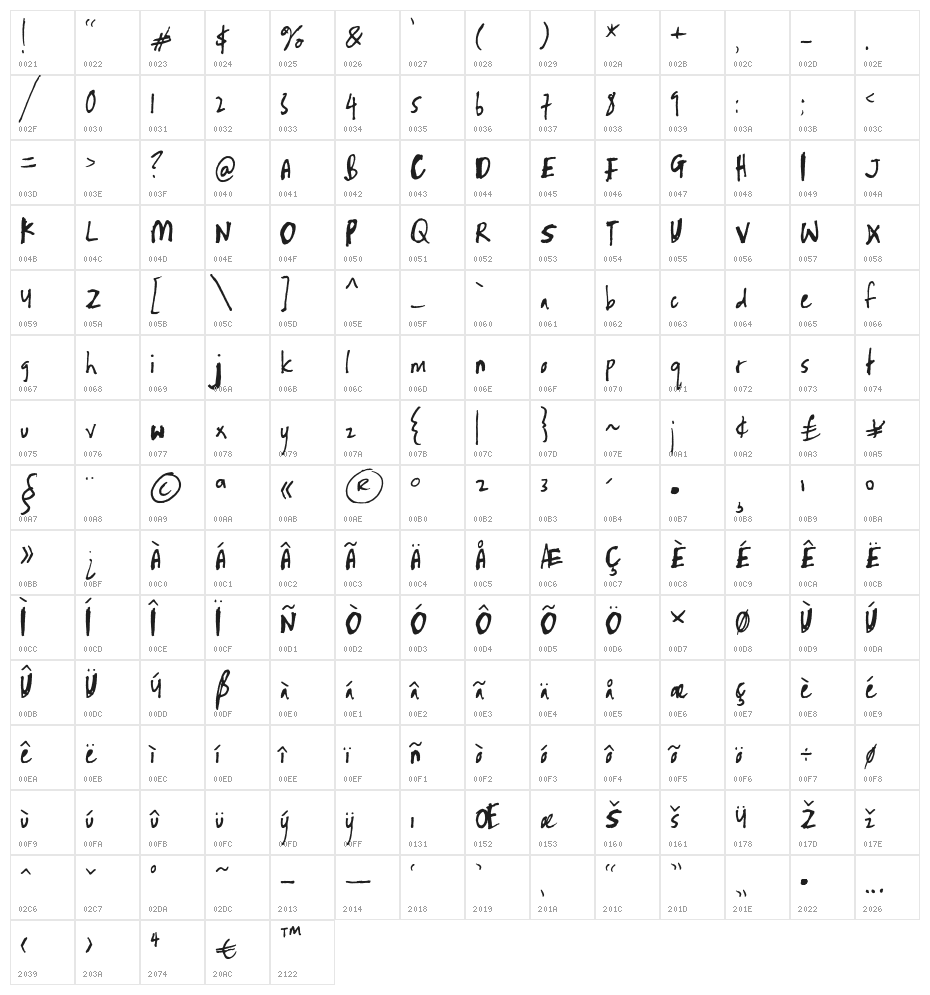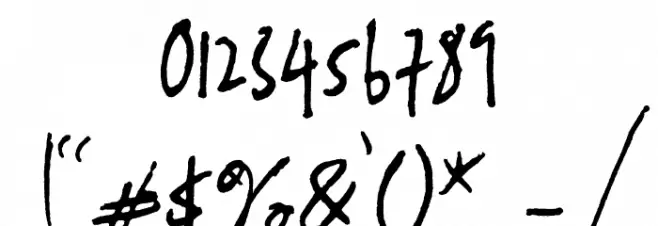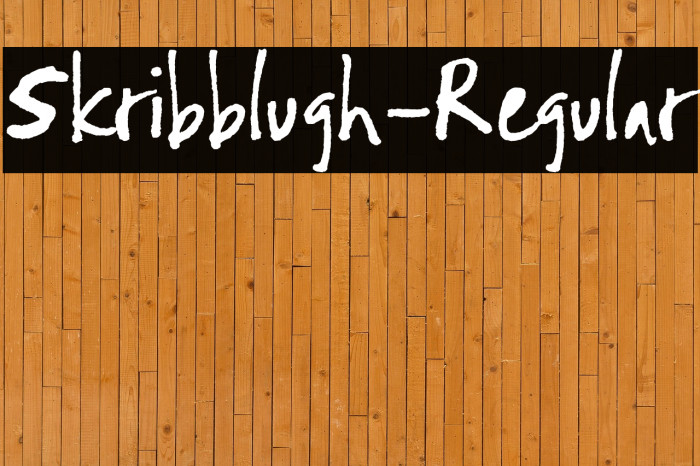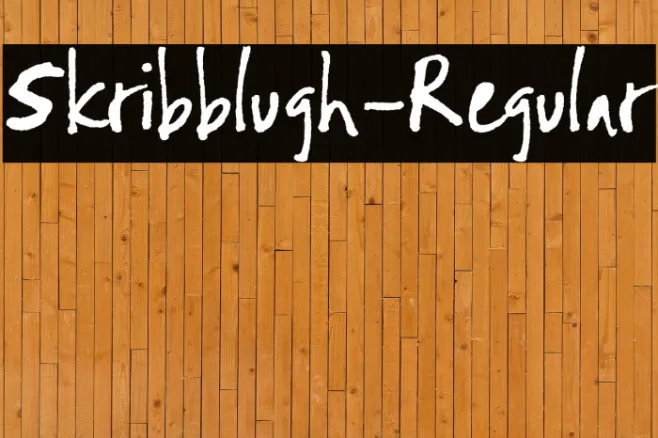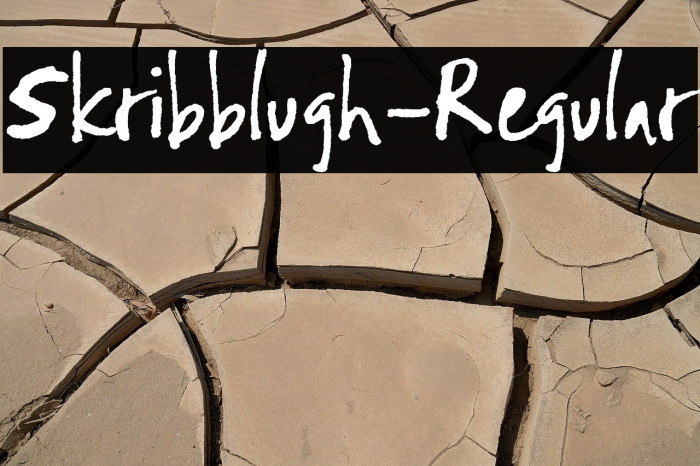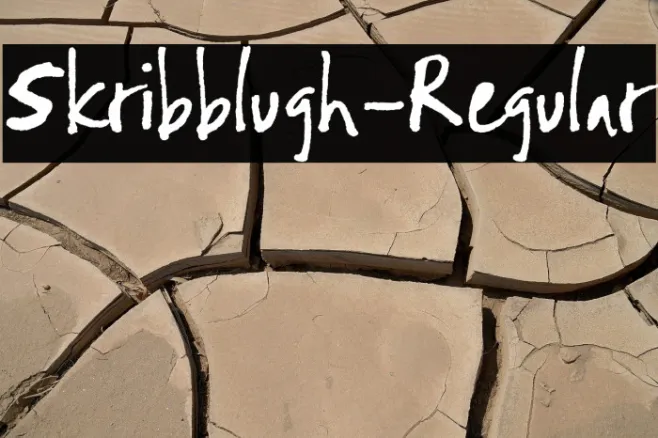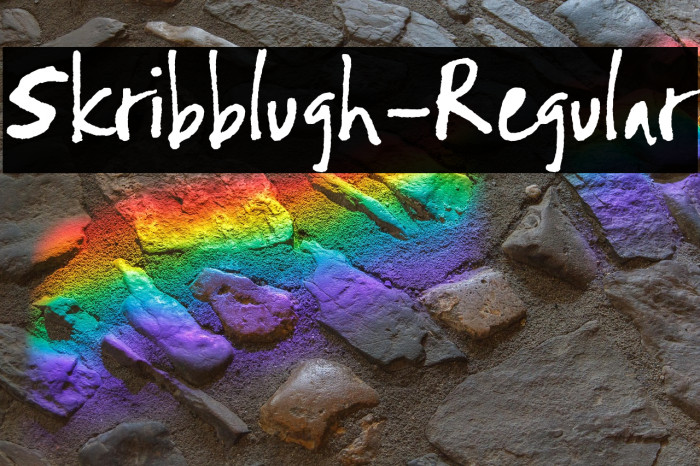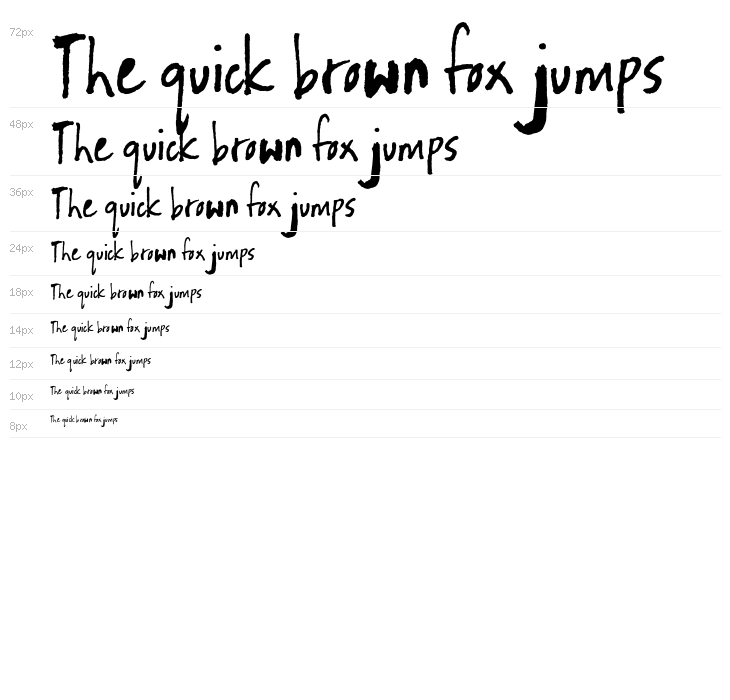
Skribblugh-Regular Font
Skribblugh-Regular Description
This font exhibits a playful and informal handwritten style, characterized by its irregular strokes and slightly uneven baseline. The letters have a casual, organic feel, with varying thickness that adds a dynamic and lively touch. The uppercase and lowercase letters maintain a consistent style, while the numerals and special characters blend seamlessly with the overall aesthetic. The font's rough edges and spontaneous appearance make it ideal for projects that require a personal, human touch.